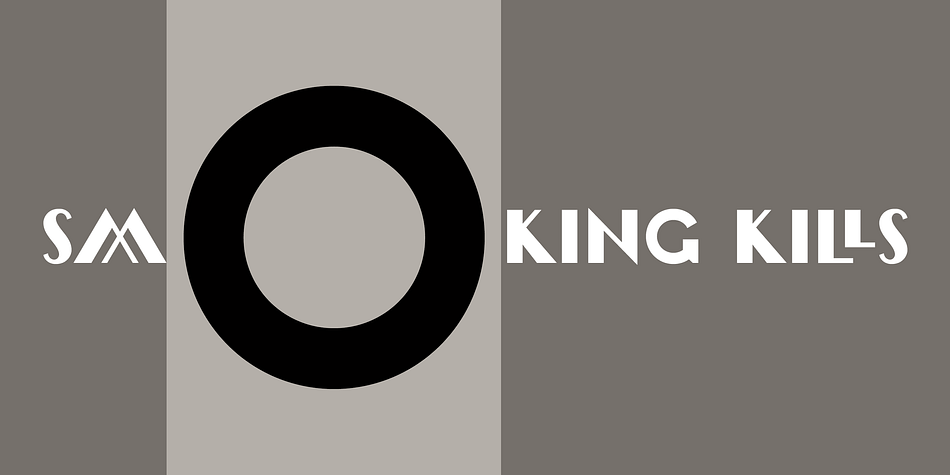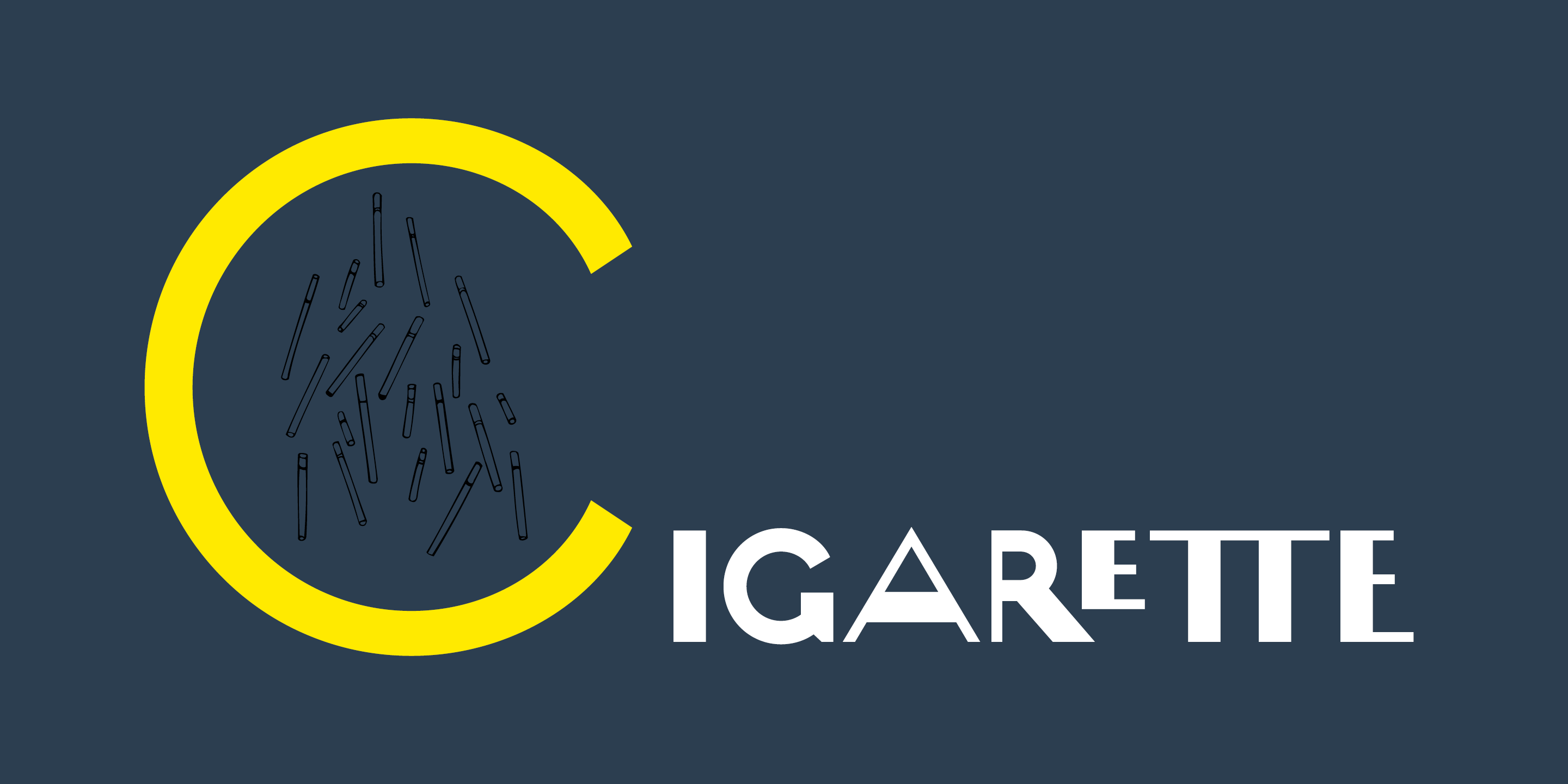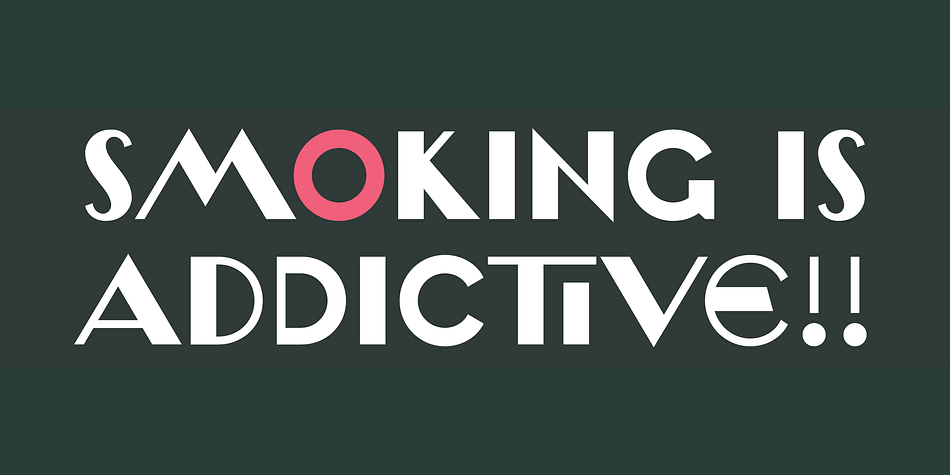
Cigarette is a art deco font published by Dharma Type.
Experimental typography meets Artdeco retro style. Odd contrast gives your works curious impression. This font include ligatures for advanced typography.